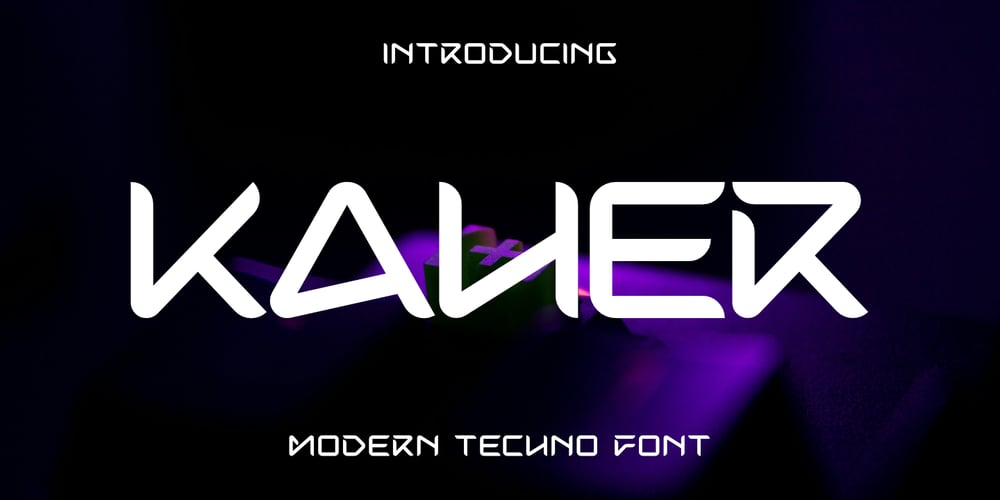
Kaher Font Family was designed by Saiful Anwar and published by Sealoung. Kaher contains 2 styles and family package options. Kaher – Modern Techno Font is a contemporary corporate font with a balanced, modern, minimalist, distinctive, and iconic design. This font is characterized by its minimalist style, making it ideal for branding projects, logos, poster designs, social media posts, advertisements, product packaging, product designs, labels, photography, watermarks, invitations, stationery, and other projects that require a modern and stylish look.What’s Included : Full Uppercase Character Set A-Z Numerals & Punctuation Accented Characters (Western Europe) Italic style for dynamic and versatile design options Compatible with PC & Mac Best used with Adobe Illustrator or Adobe Photoshop We hope you enjoy using our font! ๐